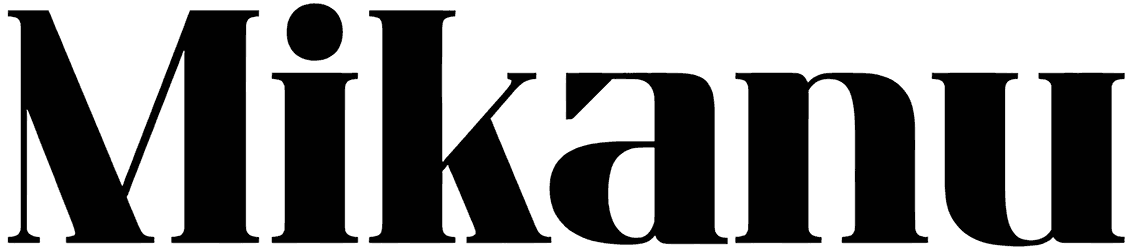
Mikanu Font
Would you like to have a classic and unique style for your project? This serif font is able to catch your eye. The Mikanu font covers eye-catching characters, but consider that it doesn’t support numerals. Test this elegant font for your next layout, such as a fashion event flyer, and leave a lasting impact on your followers.